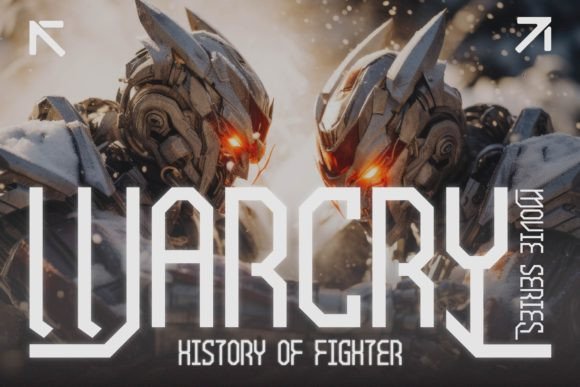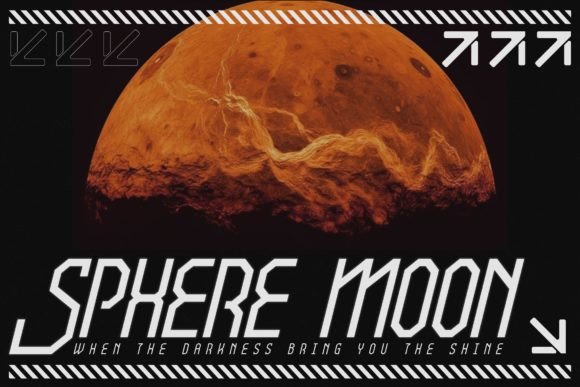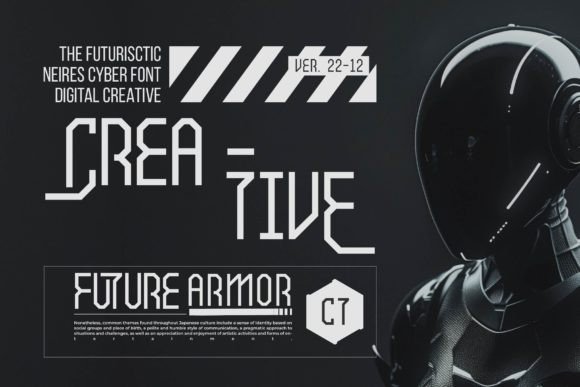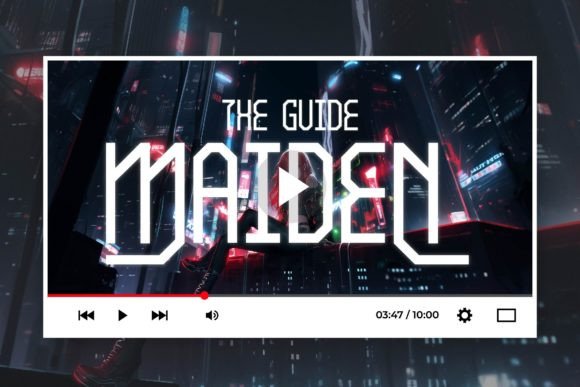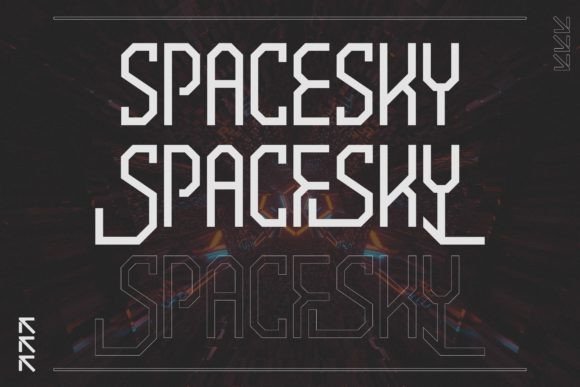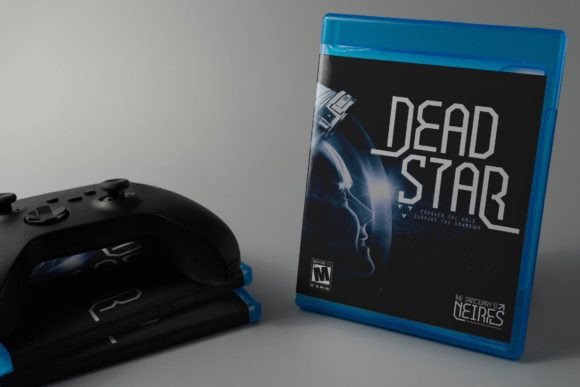
Introduction to Neires Font
As a designer, there’s nothing quite like the thrill of bringing a creative project to life. It’s that moment when you’re pouring over lines, shapes, and colors, searching for the perfect combination to make your vision a reality. And for those who have ever delved into the world of futuristic and sci-fi designs, you know how challenging it can be to find the right font that captures the essence of innovation and high-tech.
Enter the Neires Font, a sleek and modern design resource that’s perfect for digital and sci-fi themes. With its clean lines, sharp letters, and transparent background, this font is sure to elevate your designs to the next level. And the best part? It’s available for a free download, making it a valuable addition to any designer’s toolkit.
Whether you’re working on a high-quality design project or simply looking to add a touch of futuristic flair, the Neires Font is an essential resource that’s sure to inspire your creativity and take your designs to new heights.
Key Features of Neires Font
- High-quality design resource with a unique, creative style suitable for various projects.
- Transparent background, making it easy to integrate into various design backgrounds.
- Perfect for designers working on creative projects, including graphic design, digital art, and more.
- Resolution-independent, ensuring crisp and clear display across different screen sizes and resolutions.
- Comes in a range of sizes, from 16 to 64 points, allowing for flexibility in design composition.
Honest Review: Neires Font
As a designer, I’m always on the lookout for high-quality design resources to enhance my creative projects. Recently, I stumbled upon the Neires Font, and I must say, it’s a gem. The font is perfect for designers who want to add a touch of elegance to their designs.
- What works well: ✨ The font is highly customizable, making it suitable for various design projects. It’s also available for free download, which is a huge plus for designers on a budget. The transparent background option is a nice feature, allowing designers to easily integrate the font with other design elements.
- What doesn’t: ⚠️ The font is only available in a limited number of weights, which might be a drawback for designers who need a wider range of options. Additionally, the font may not be suitable for body text due to its ornate nature.
Overall, I’m impressed with the Neires Font’s high quality and versatility. It’s a great design resource for designers who want to add a touch of sophistication to their projects. While it may have some limitations, I believe it’s a valuable addition to any designer’s toolkit.
The Neires Font is a high-quality, creative project design resource that offers a unique and modern style. To get the most out of it, follow these steps:
To get the most out of the Neires Font, try using it in combination with transparent backgrounds and bold colors. You can also experiment with different font sizes and styles to create unique and eye-catching designs.
The Neires Font is ideal for a variety of creative projects, including logos, graphics, and presentations. It’s also a great resource for designers who want to create high-quality, professional-looking designs with a modern twist.